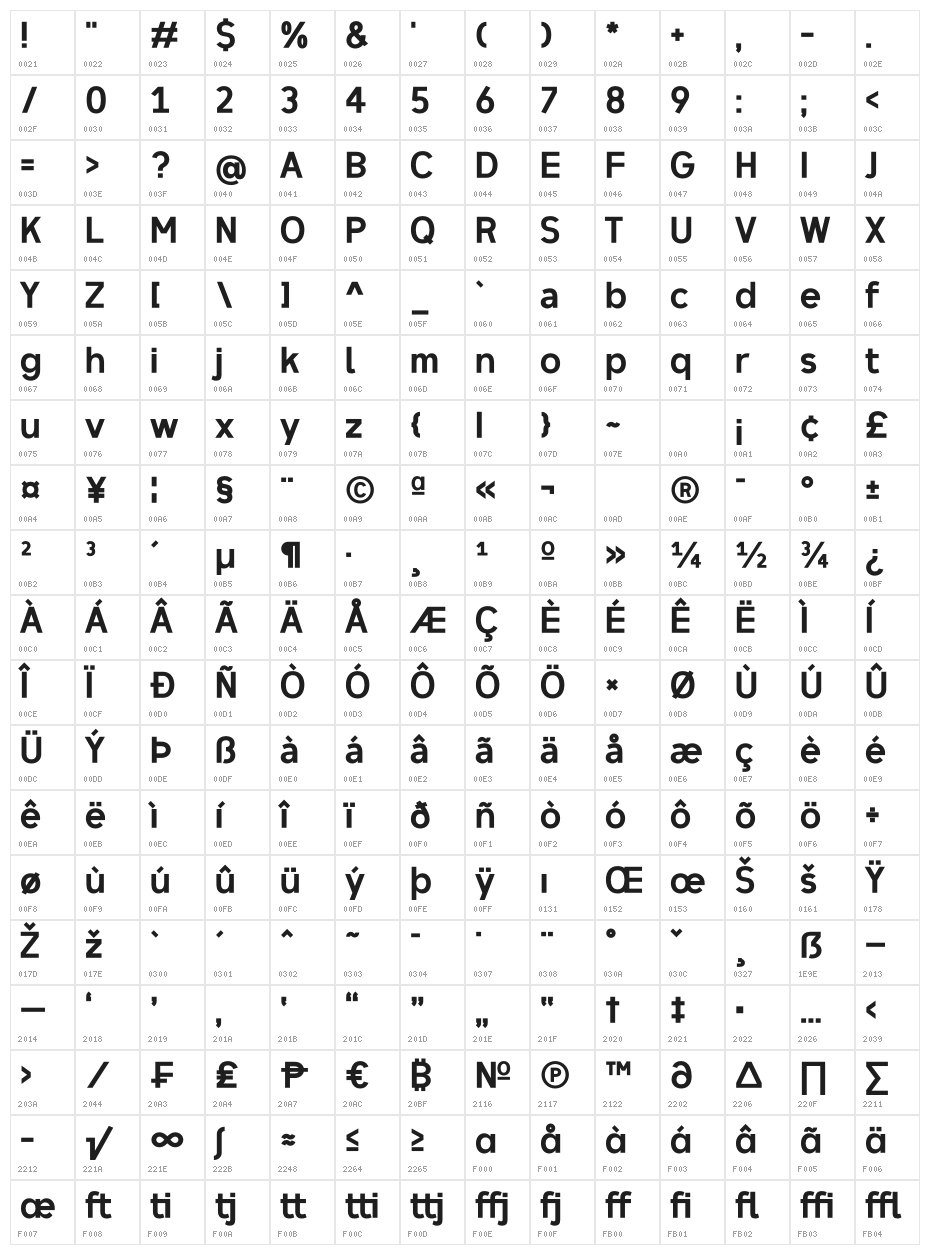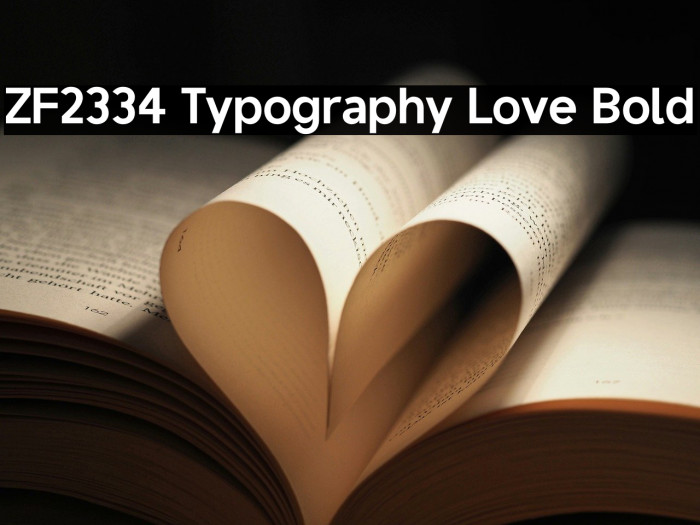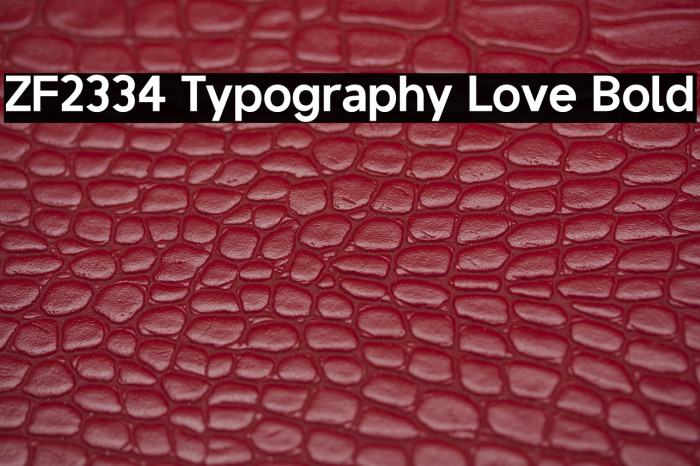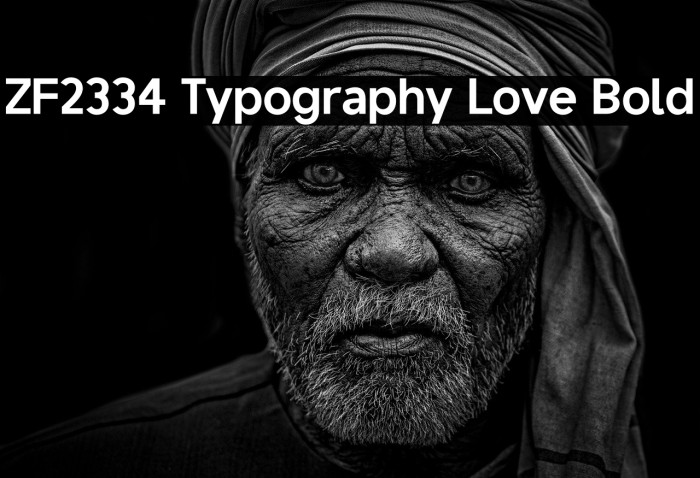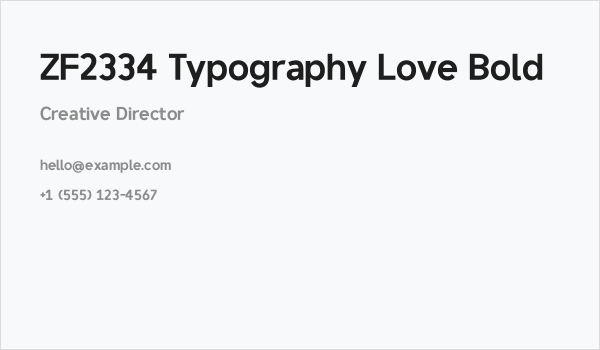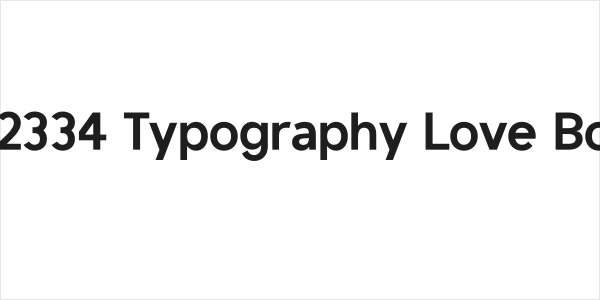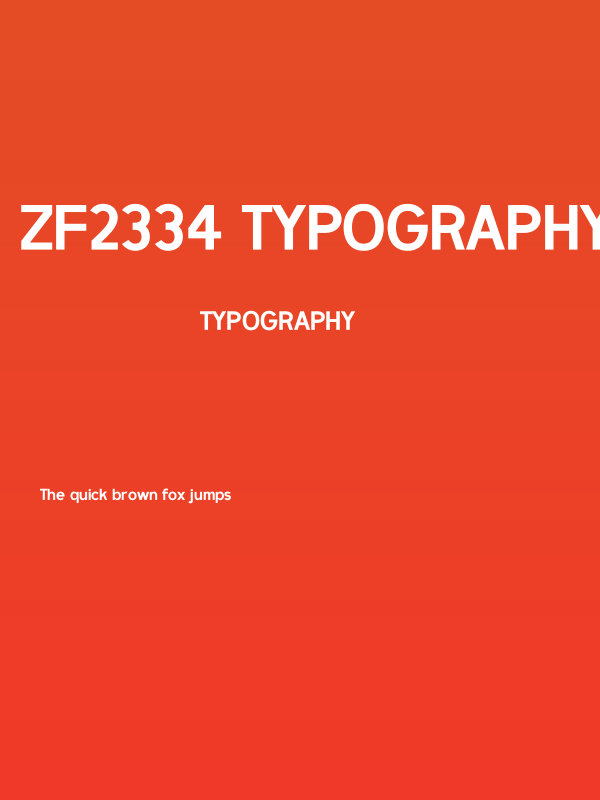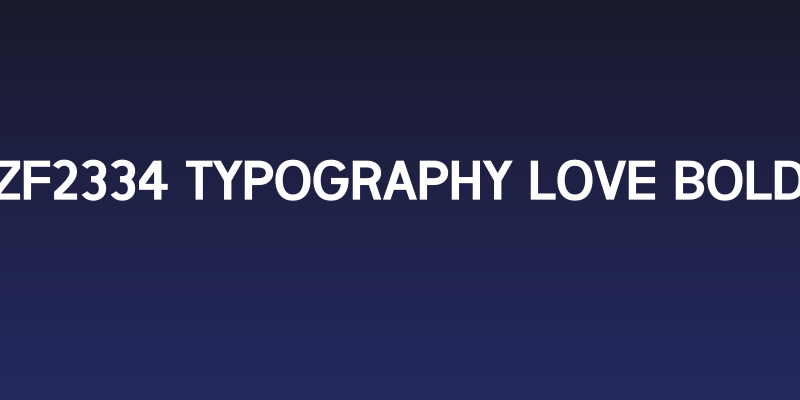
ZF2334 Typography Love Bold Font
ZF2334 Typography Love Bold Description
This font is characterized by its bold and robust appearance, featuring clean lines and a modern aesthetic. The characters are evenly spaced, providing a balanced and harmonious look. The uppercase letters are strong and assertive, while the lowercase letters maintain a consistent style that complements the overall design. The numerals are clear and legible, making them suitable for a variety of applications. Special characters are well-integrated, adding versatility to the font's use. The font's simplicity and clarity make it ideal for both digital and print media.
| Proposed Projects | Ideal for branding, advertising, headlines, and digital media. |